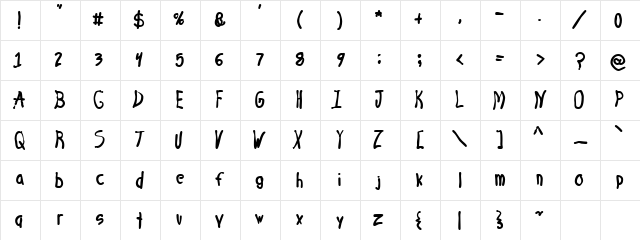
4 Star Face Font Regular
Design Context for 4 Star Face Font
4 Star Face Font is a composed and adaptable typeface that performs quietly and consistently across a wide range of design contexts.
Pro Tip: Use 4 Star Face Font in both headline and body roles to test its range before committing to a single application.